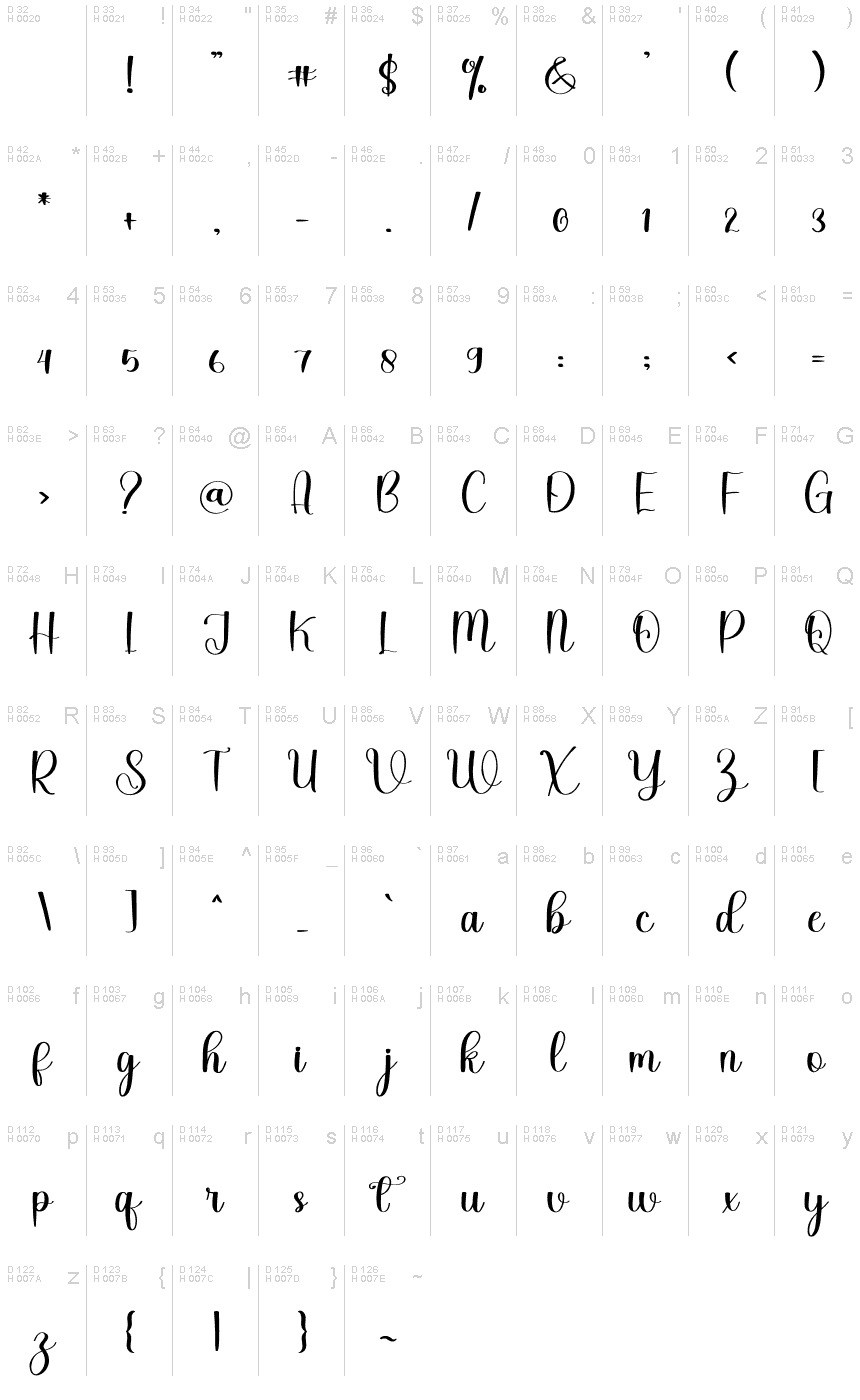
Fantastic, a mesmerizing calligraphy font by FreshtypeINK, effortlessly combines elegance with a touch of whimsy. Its semi-light weight gracefully captures the essence of delicate strokes and flowing curves. Perfect for wedding invitations, greeting cards, and elegant branding projects, this font adds a touch of sophistication to any design. With its enchanting swirls and graceful lines, Fantastic is also ideal for creating eye-catching logos or adding a romantic flair to book covers. Let your imagination run wild and infuse your projects with the enchantment of Fantastic's calligraphic charm.